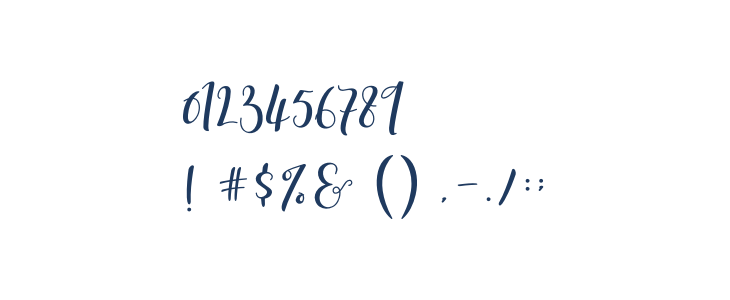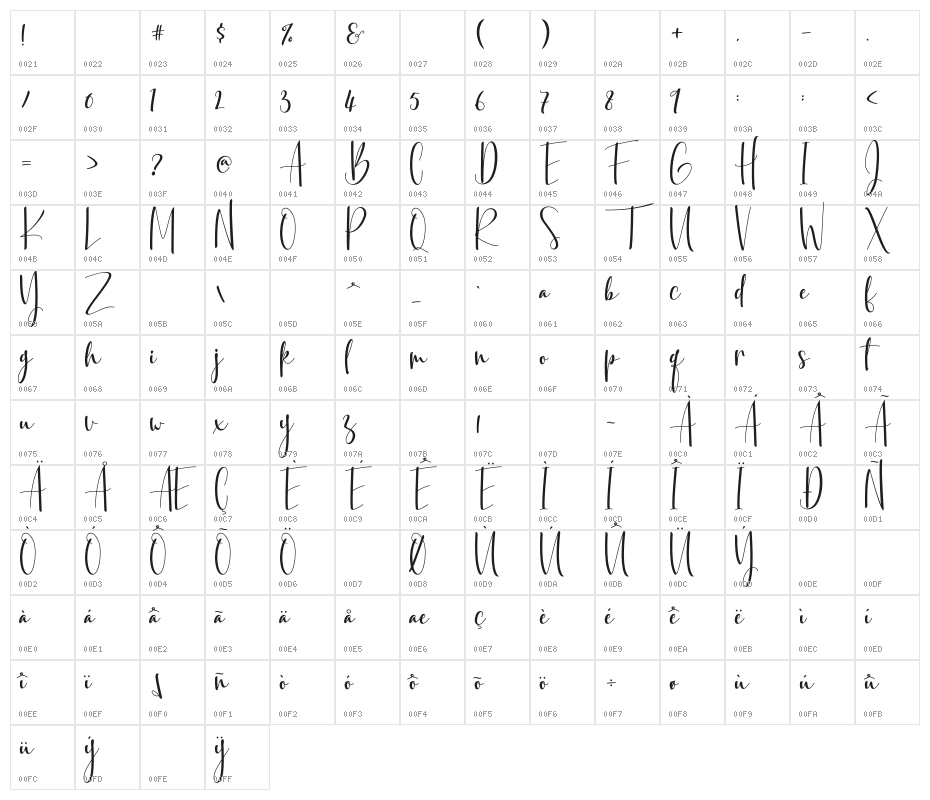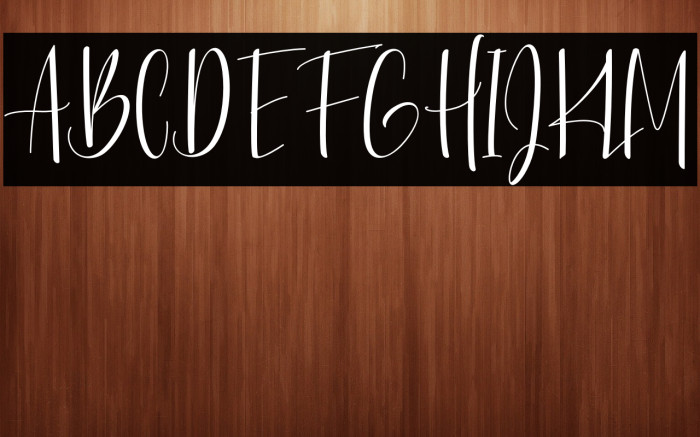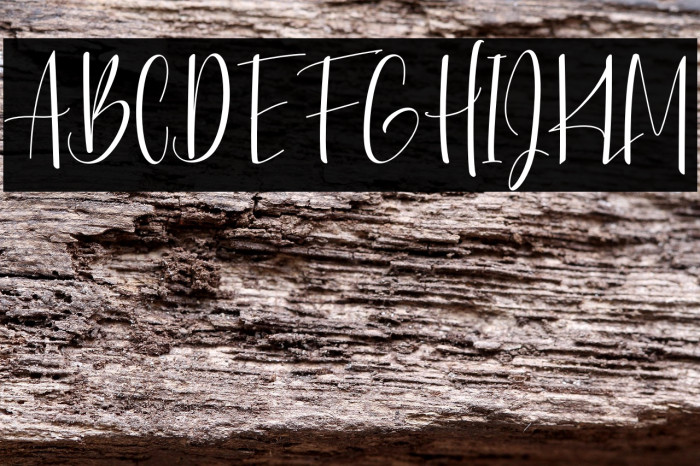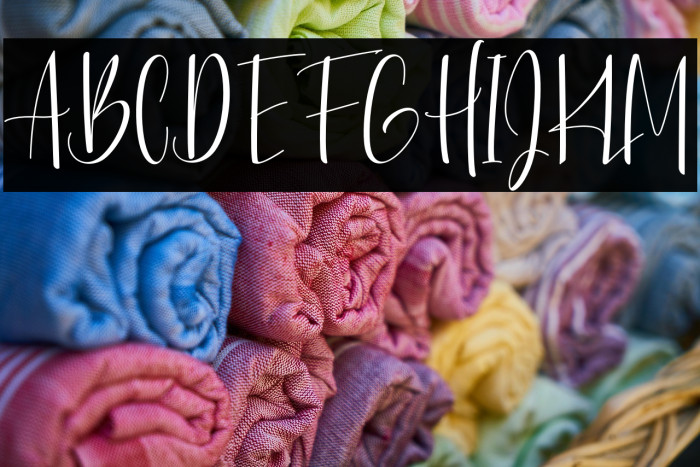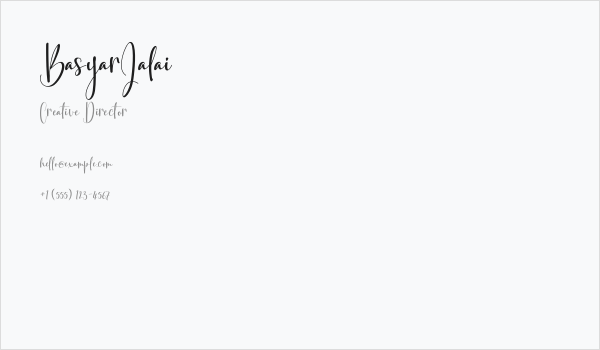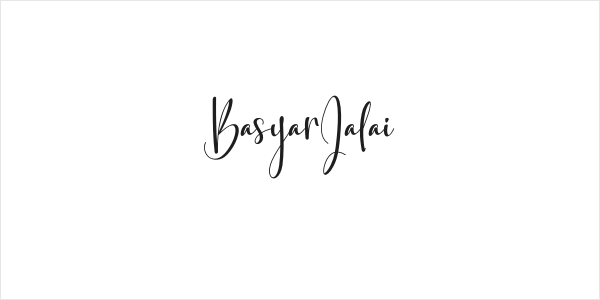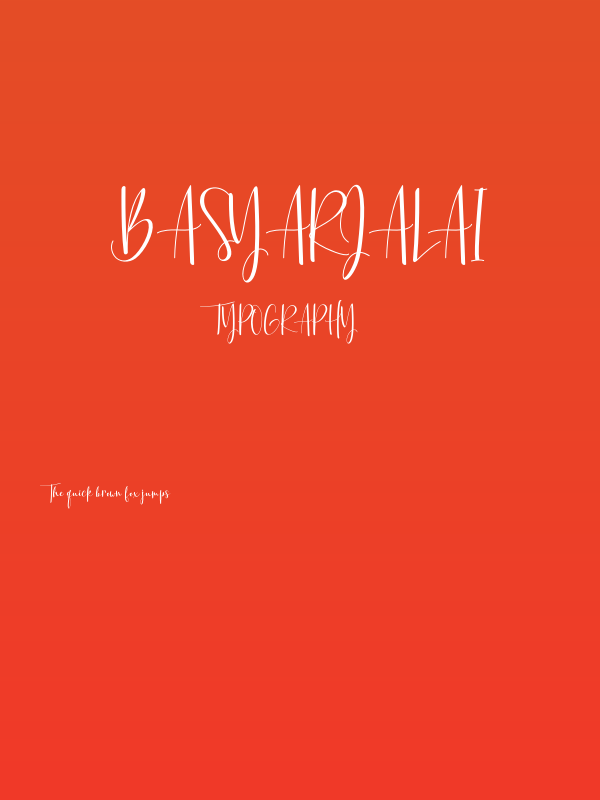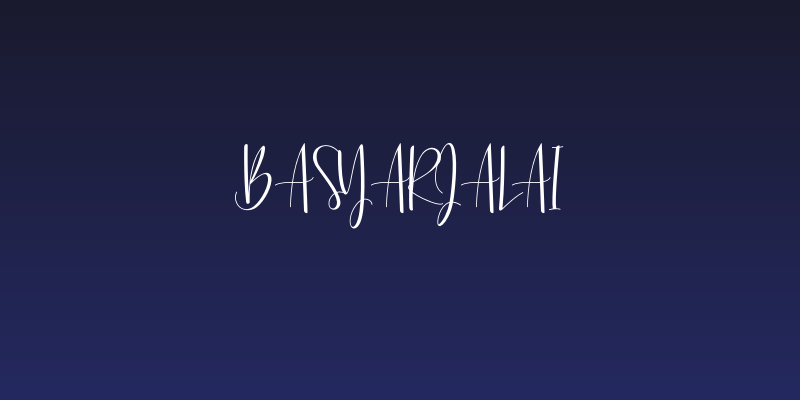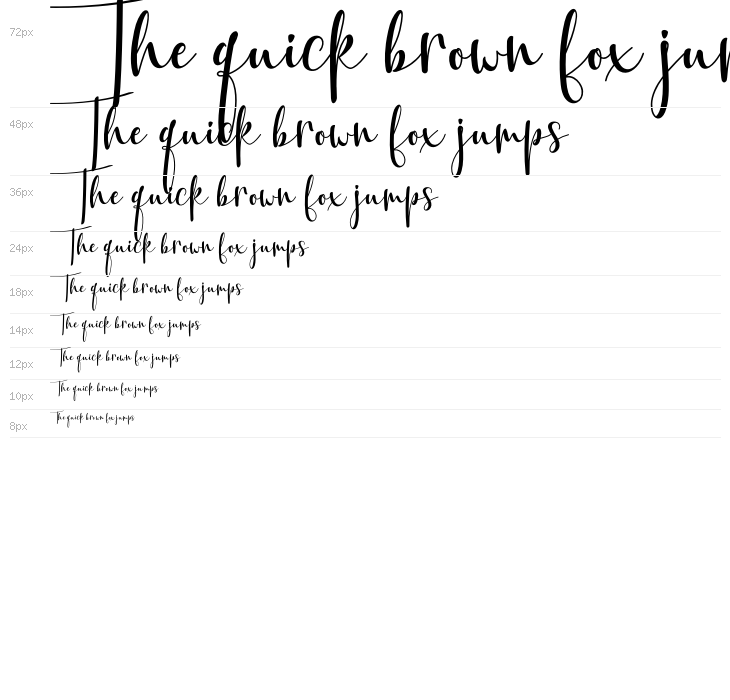
BasyarJalai Font
BasyarJalai Description
This font features a dynamic and expressive handwritten style, characterized by its fluid and flowing letterforms. The uppercase letters are tall and slender, with a playful, whimsical touch that adds a sense of movement and energy. The lowercase letters maintain a consistent style, with smooth curves and elegant loops that enhance its artistic appeal. Numbers and special characters are crafted with the same attention to detail, ensuring a cohesive look across all elements. The overall design is both modern and artistic, making it suitable for creative projects that require a personal and unique touch.
| Proposed Projects | Ideal for wedding invitations, greeting cards, branding, and artistic projects. |